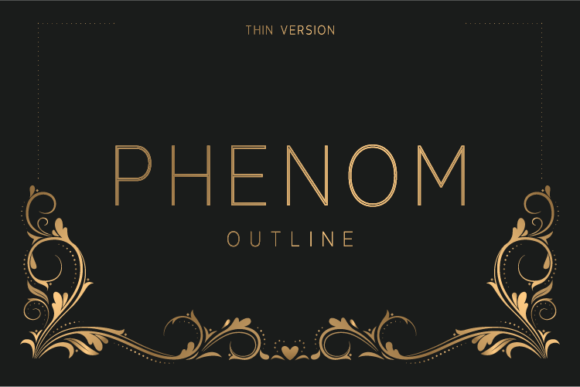
Phenom Outline Thin Font
Immerse yourself in the captivating world of Phenom Outline Thin Font, a meticulously crafted sensation by Nan Design. This magnificent sans serif font exudes a captivating aura that will undoubtedly elevate your design endeavors. Prepare to be mesmerized by its graceful curves and striking sharp edges that effortlessly blend, creating a symphony of elegant contrast.
Phenom Outline Thin Font is not merely a collection of letters; it is an invitation to unleash your creativity and embark on a journey of limitless possibilities. Its versatile nature seamlessly adapts to a kaleidoscope of design concepts, empowering you to paint your imagination across any canvas. Whether you seek to craft alluring logos, captivating social media posts, or enchanting invitations, Phenom Outline Thin Font stands ready to be your trusted companion.
Indulge in the allure of Phenom Outline Thin Font, a typographic masterpiece that will transform your designs into breathtaking works of art. Its allure is undeniable, its versatility unparalleled, and its ability to captivate is simply enchanting. Embrace the power of Phenom Outline Thin Font and witness the metamorphosis of your creations as they blossom into masterpieces.